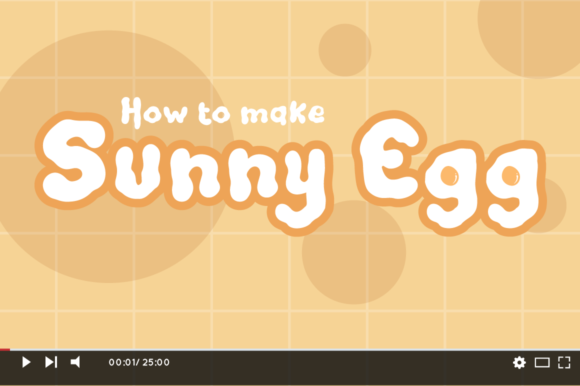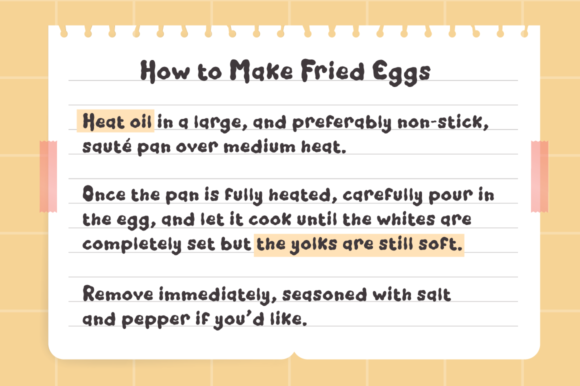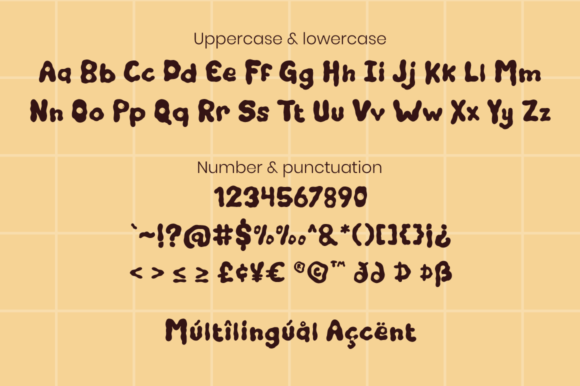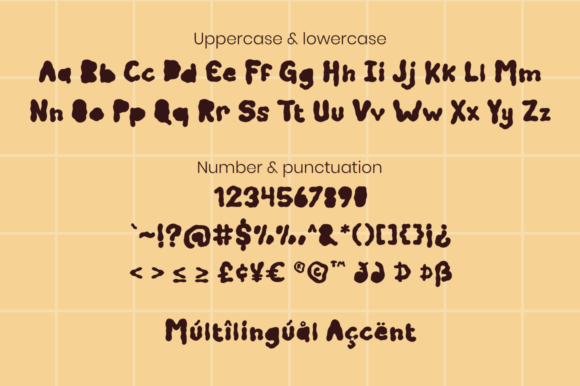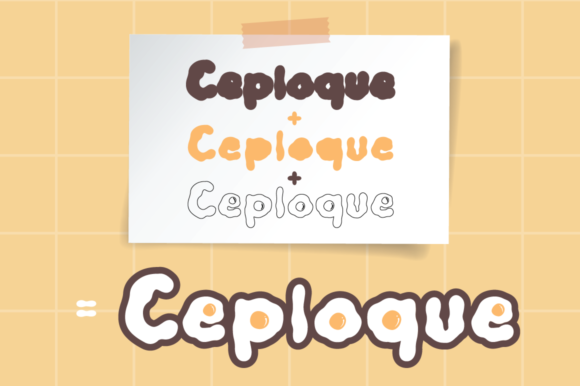
Introduction to Sende Egg Font
Do you remember that moment when you finally nailed the perfect design for your project? The feeling of satisfaction and pride that comes with it is unmatched. For many of us, that moment is often accompanied by the search for the perfect font to bring our creation to life. If you’re looking for a font that will elevate your design to the next level, you’re in luck.
We’re excited to introduce you to the Sende Egg Font, a cool and fun-looking display font that’s sure to become a valuable addition to your design library. With its high-quality design and transparent background, this font is a dream come true for designers seeking a versatile and engaging design resource.
Key Features of Sende Egg Font
- High-quality design resource perfect for creative projects, including digital art and graphic design.
- Unique characteristics include its playful and whimsical design style, making it perfect for adding a touch of personality to creative projects.
Honest Review: Sende Egg Font
I recently had the chance to work with the Sende Egg Font, and I must say it’s been a great addition to my design resources. As a designer, I’m always on the lookout for high-quality fonts that can elevate my creative projects.
What works well about the Sende Egg Font is its versatility and unique design. The font features a transparent background, making it perfect for overlaying on top of images or backgrounds. It’s also highly customizable, allowing me to adjust the color and size to fit my design needs.
Here are some of the key features I love about the Sende Egg Font:
- Transparent background for easy overlaying
- Customizable color and size options
One limitation I’ve noticed is that the font can be a bit difficult to read at smaller font sizes. However, this is a minor issue and doesn’t detract from the overall quality of the font.
Overall, I’m very impressed with the Sende Egg Font and would highly recommend it to any designer looking for a unique and high-quality font for their creative project.
How to Use Sende Egg Font
The Sende Egg Font is a high-quality, free download that offers a unique and creative design element for your projects. Its transparent background makes it versatile for various design applications.
To get the most out of the Sende Egg Font, experiment with different font sizes, colors, and combinations. You can also use it in conjunction with other design elements to create a unique and eye-catching visual effect.
The Sende Egg Font is suitable for various design projects, including social media graphics, presentations, logos, brochures, business cards, and reports. Its versatility and high-quality design make it an excellent resource for designers and non-designers alike.